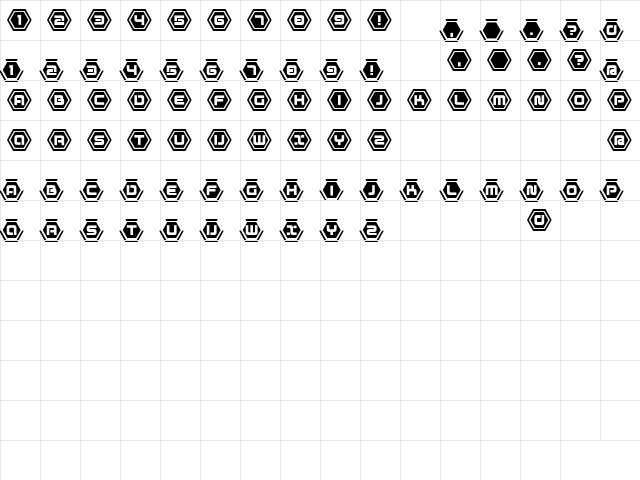
D3 Honeycombism Sorround Regular Font Preview
D3 Honeycombism Sorround Regular
D3 Honeycombism Sorround Regular Font Details
Design Context for D3 Honeycombism Sorround Typeface
D3 Honeycombism Sorround softens its letterforms with rounded terminals, giving it an approachable, friendly quality that works well in consumer-facing and digital contexts.
A natural fit for tech startups, health and wellness brands, children's products, and friendly consumer apps.
Font Pairing: Pairs well with a rounded or humanist sans for body copy, maintaining the friendly tone without relying on D3 Honeycombism Sorround to carry extended reading.
Pro Tip: Pair D3 Honeycombism Sorround with a geometric sans for a balanced system — the rounded softness works as a warm counterpoint to harder-edged companions.